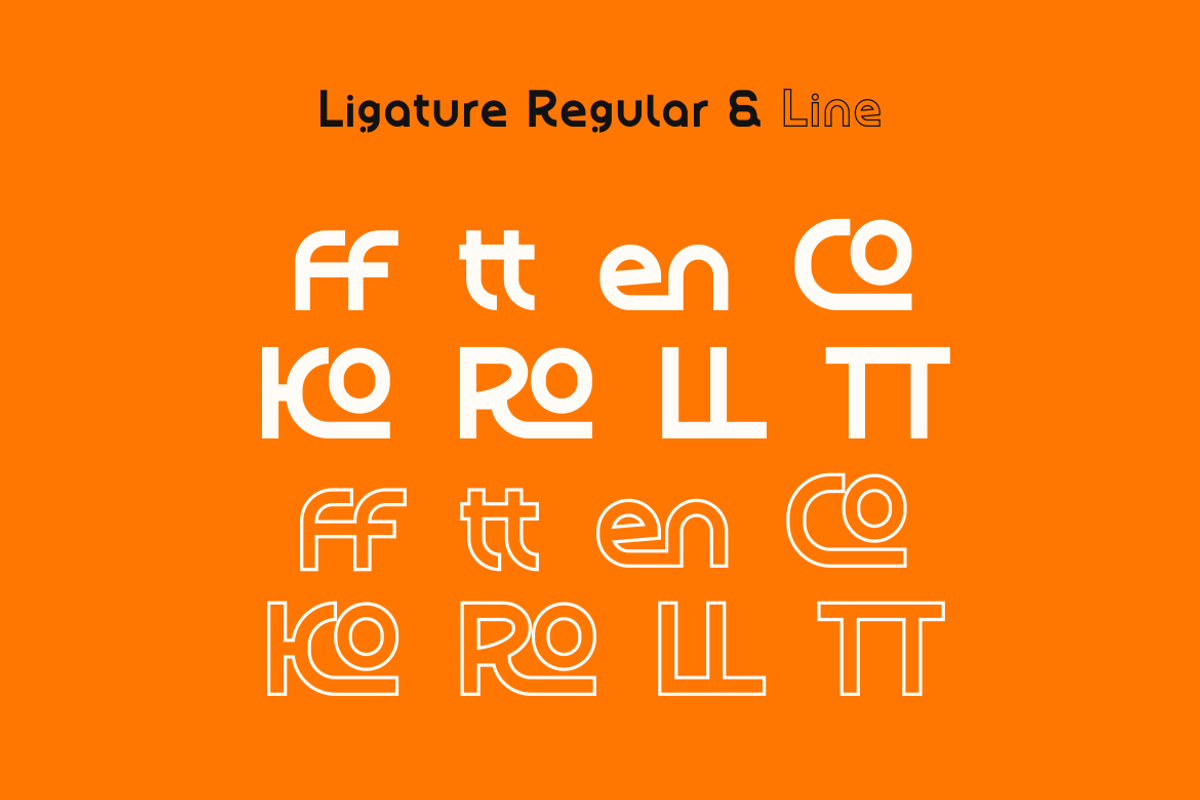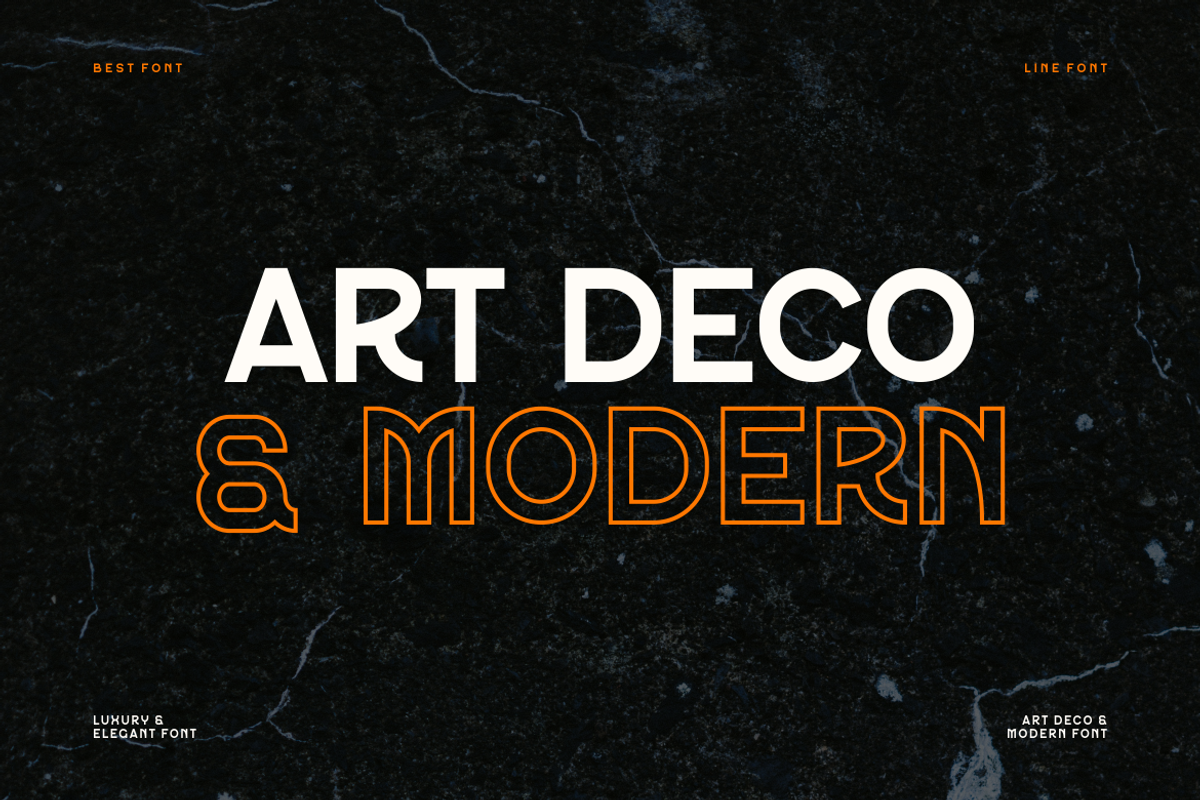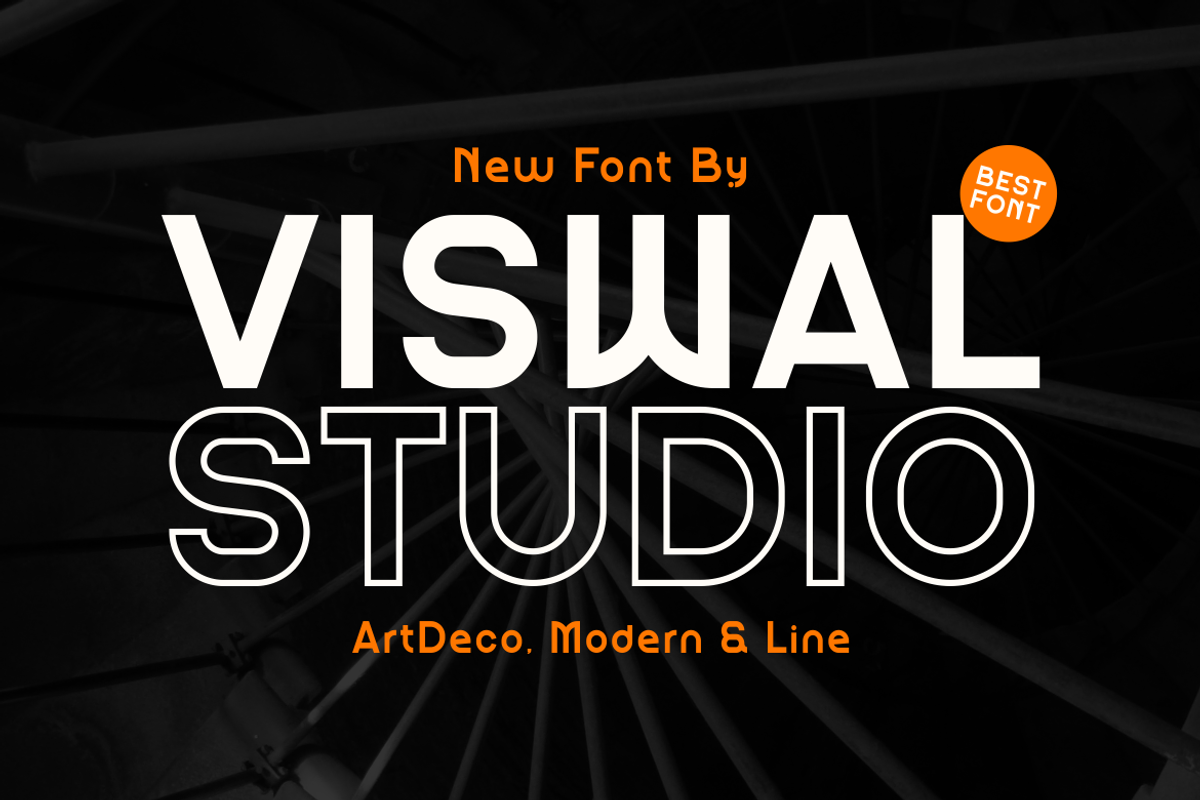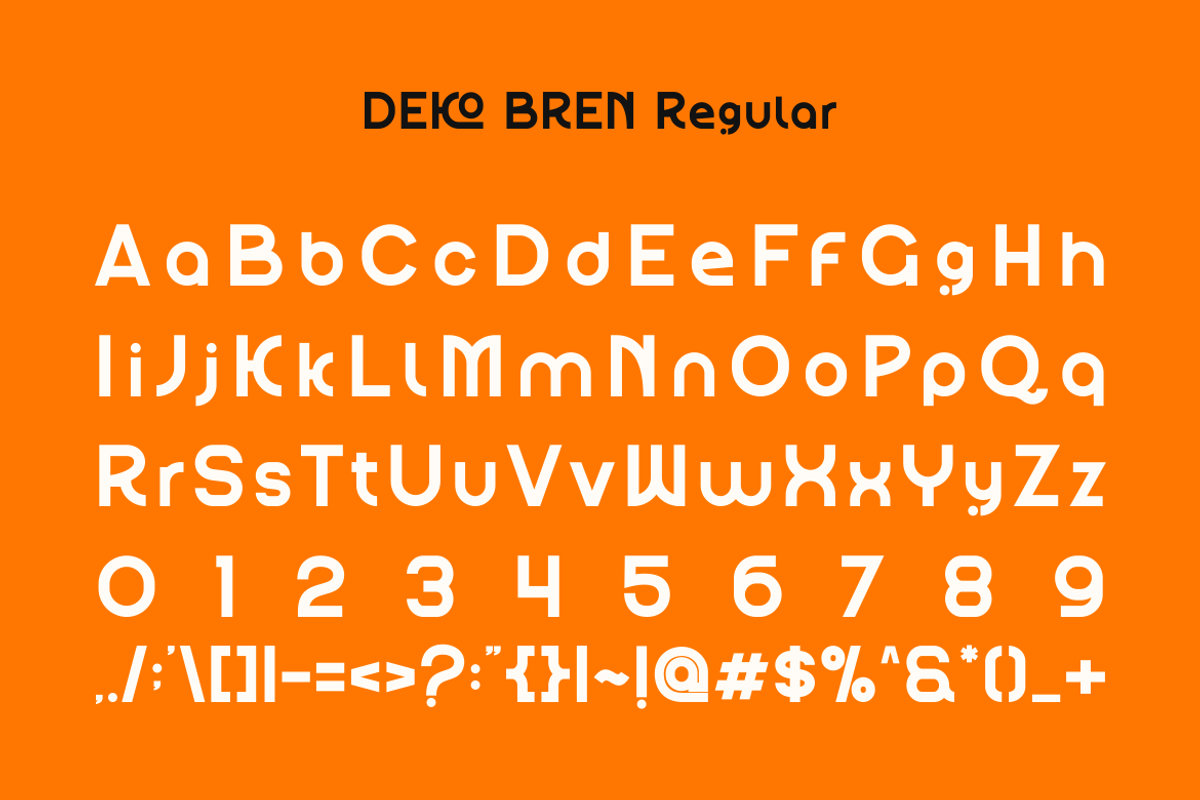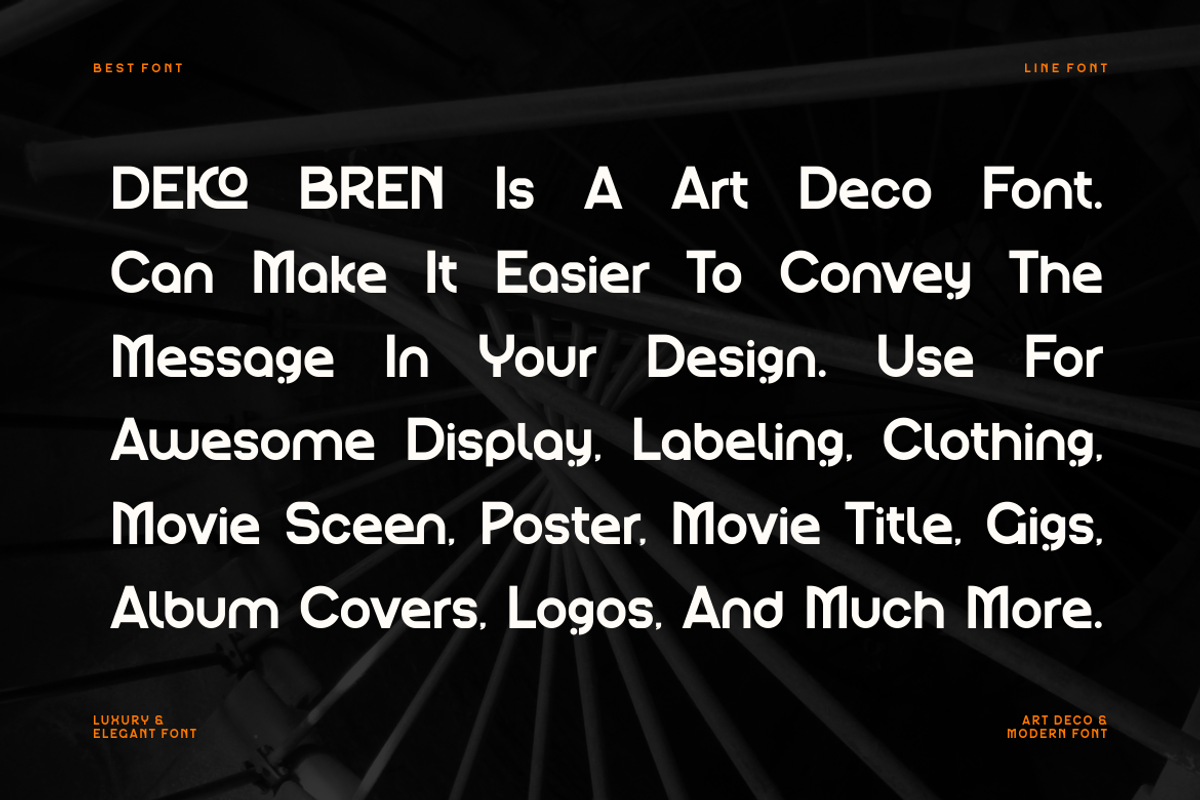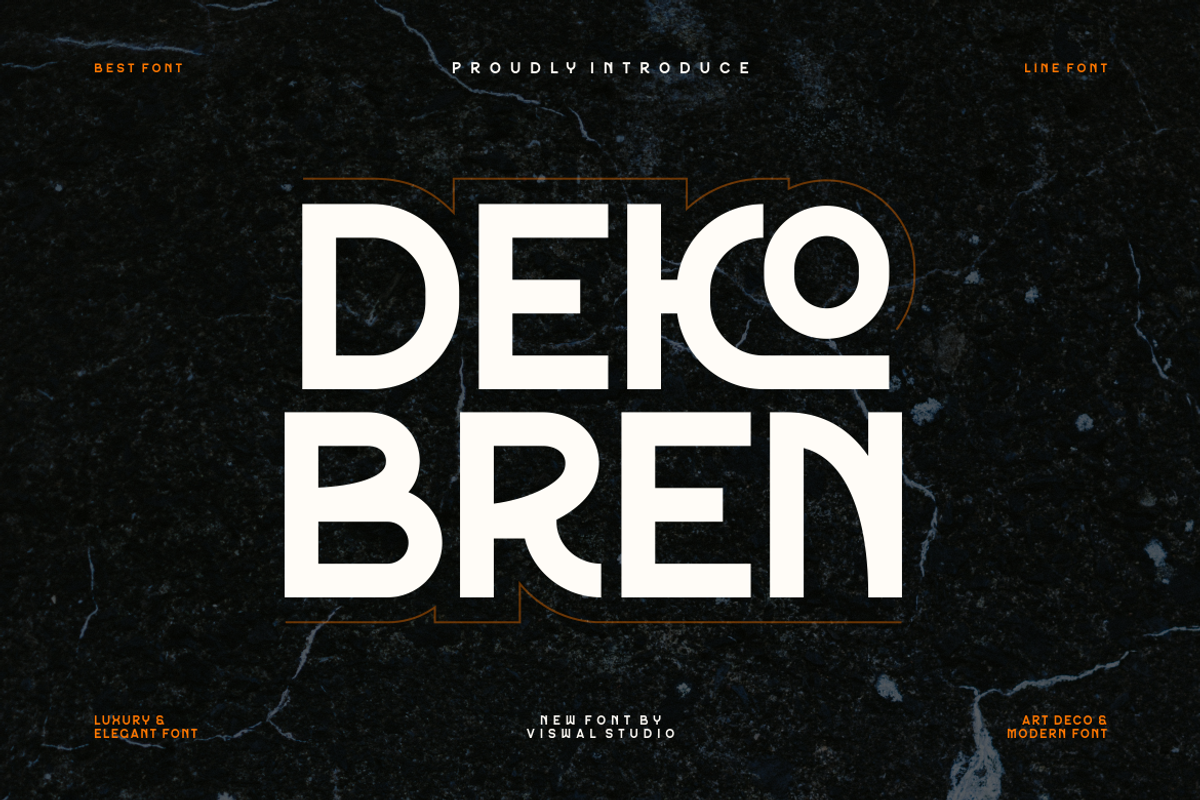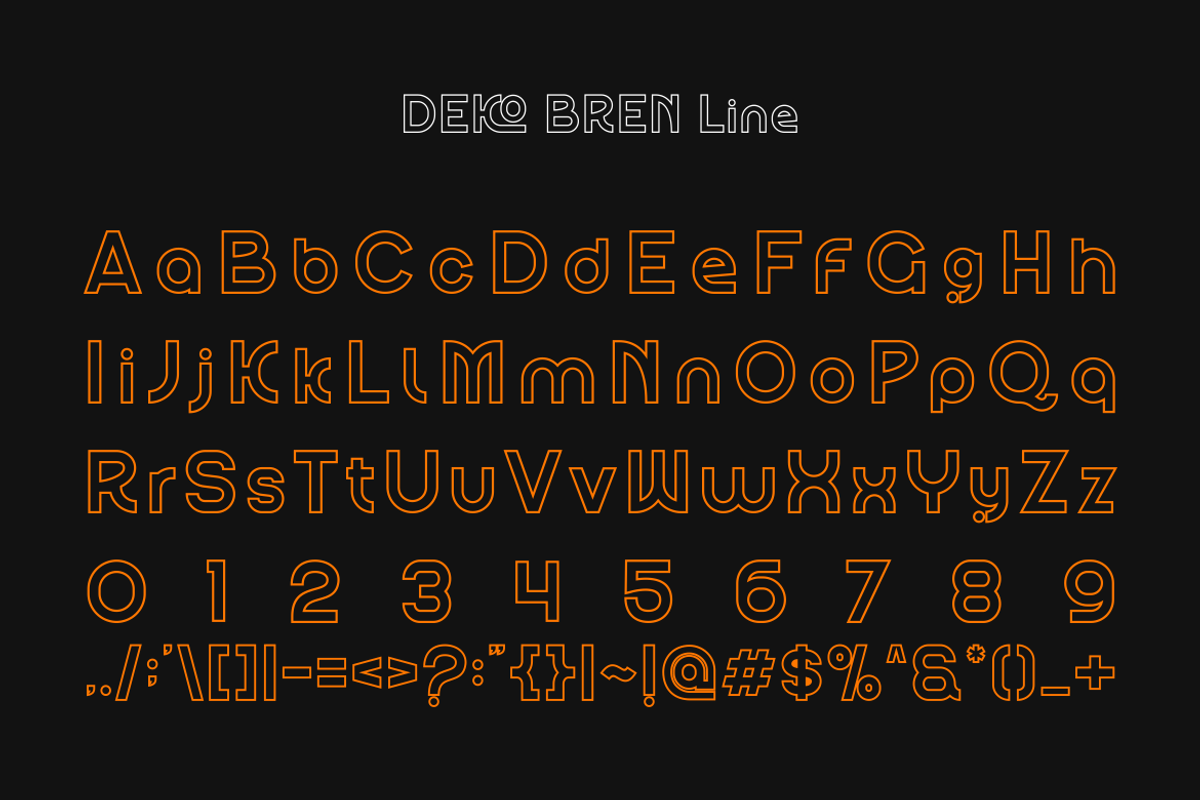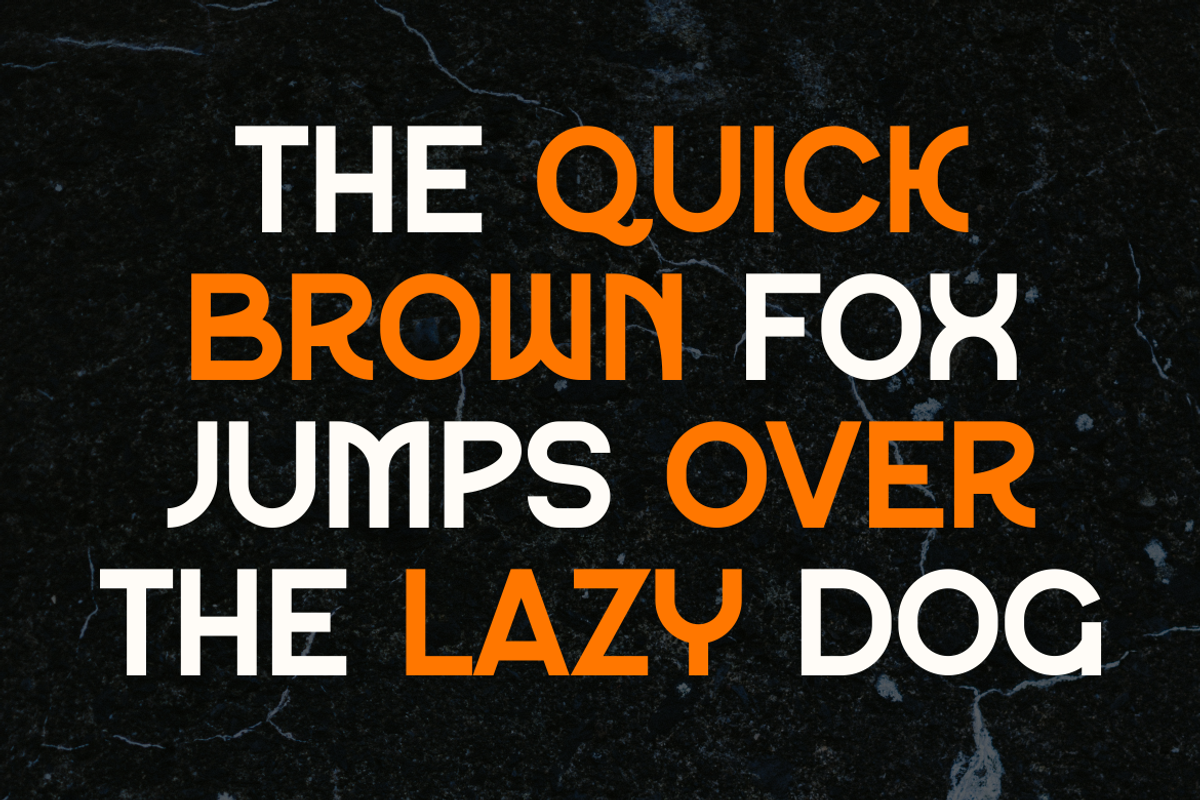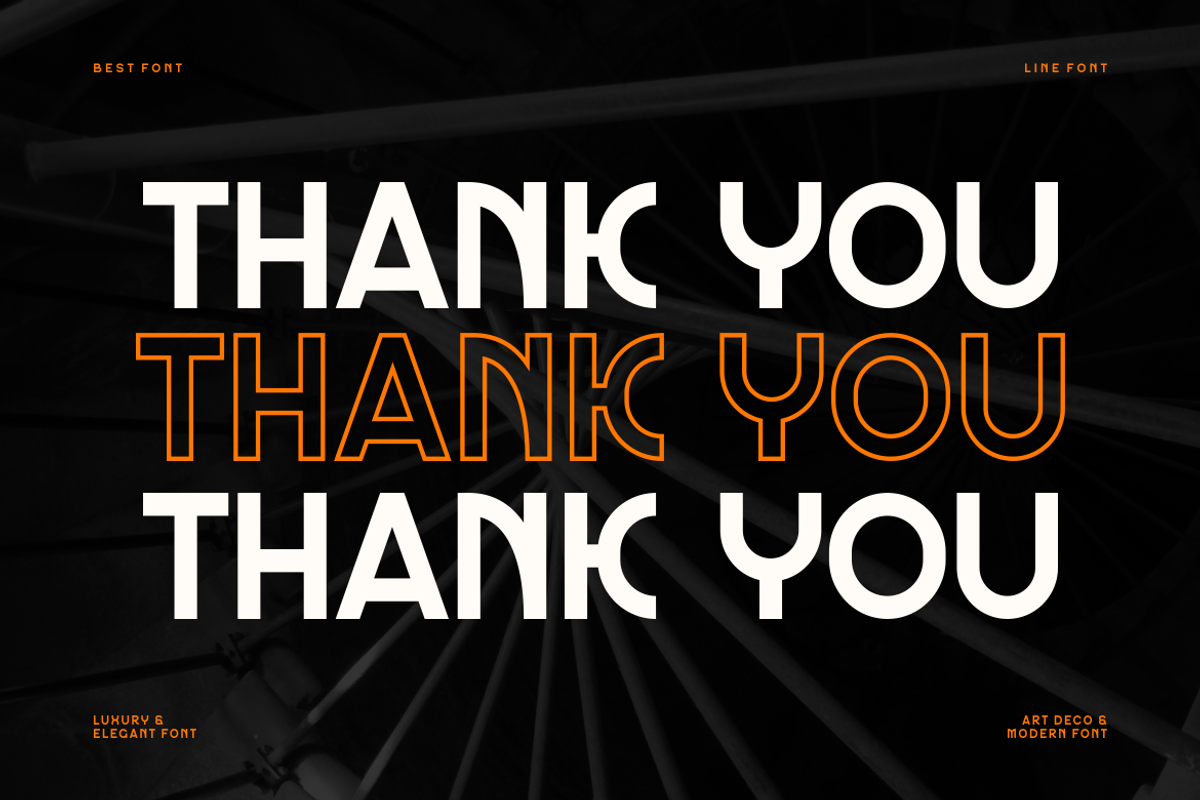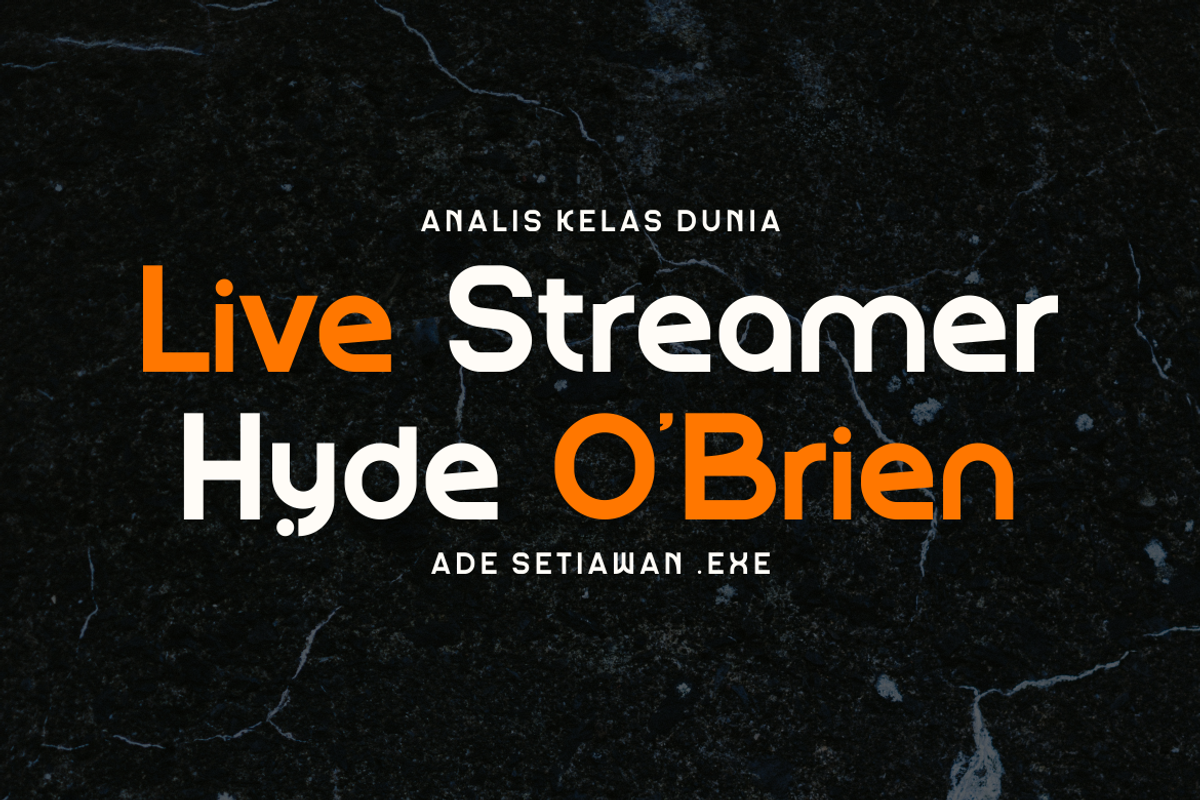
Deco Bren - Modern Font
Presenting Deco Bren Is A Modern Line Font
Can Make It Easier To Convey The Message In Your Design. Font Is Suitable For Logo, Labels, Badge, Branding, Magazine, Poster, Title, Gigs, Covers And Etc. Our Fonts Have Uppercase & Lowercase, Numeral & Punctuation, And Opentype Features. For Amazing Designs You Can Mix With Other Fonts As A Complement.